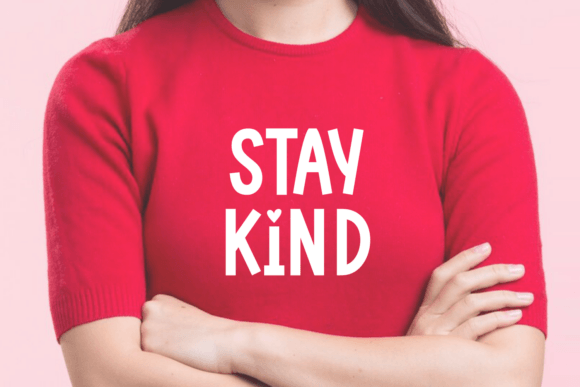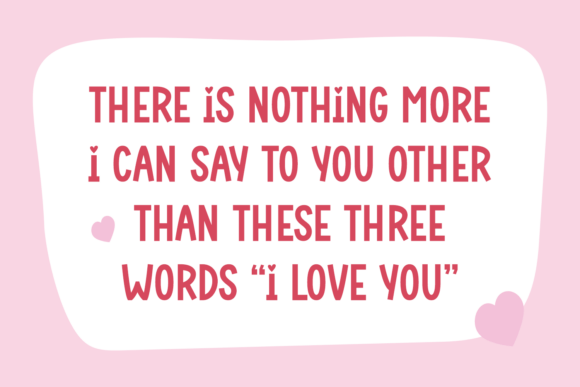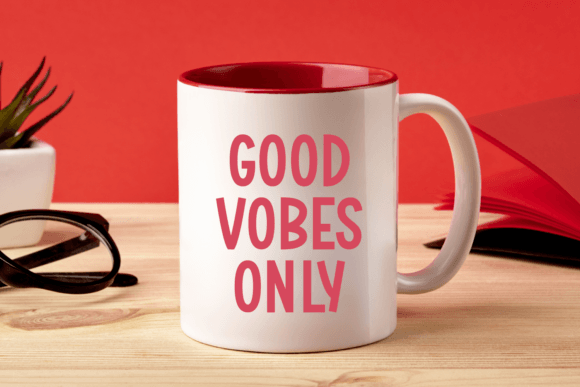
Introduction to Circle Story Font
As you sit at your desk, surrounded by scattered papers and half-finished design projects, you’re hit with a spark of inspiration. The perfect font has been eluding you, but today’s the day you stumble upon the elusive gem – the Circle Story Font. This enchanting display font is the epitome of sophistication and romance, transporting you to a world of modern whimsy.
Imagine bringing your creative project to life with the Circle Story Font’s unique charm. Whether it’s a Valentine’s Day design or a high-quality free download for your next design resource, this font’s charisma is sure to captivate. Crafted with love, its handmade strokes exude the allure of artisanal craftsmanship, making it a valuable addition to any designer’s toolkit.
With its transparent background and versatile design, the Circle Story Font is a treasure trove of creative possibilities. As you explore its features, you’ll discover why it’s a must-have for any designer seeking to elevate their work with a touch of elegance and emotion.
Key Features of Circle Story Font
- High-quality design resource with a unique, hand-drawn aesthetic, perfect for creative projects.
- Features a transparent background, allowing for easy layering and customization.
- Includes a comprehensive set of characters, including uppercase and lowercase letters, numbers, and punctuation marks.
- Designed to work well at high resolutions, with a minimum recommended resolution of 300 DPI for optimal results.
- Unique, circular design elements make it an ideal choice for projects requiring a creative, whimsical touch.
Honest Review: Circle Story Font
As a designer, I’m always on the lookout for unique and high-quality fonts to elevate my creative projects. The Circle Story Font is a recent discovery that has caught my attention. Upon closer inspection, I was impressed by its sleek and modern aesthetic.
- ✨ The font’s design is incredibly versatile and can be used for a wide range of creative projects, from digital designs to print materials.
- ✨ The high-quality design makes it perfect for use on transparent backgrounds, allowing the text to stand out and add a touch of sophistication to any design.
- ⚠️ The font may not be suitable for use in complex or detailed designs, as it can become difficult to read in certain contexts.
- ⚠️ The font’s design is quite minimalist, which may not appeal to designers who prefer more elaborate or ornate typography.
Overall, the Circle Story Font is a solid addition to any designer’s toolkit. Its modern design and versatility make it a great choice for a wide range of creative projects. While it may have some limitations, it’s a free download that’s definitely worth checking out.
Tips for Getting the Most Out of the Circle Story Font
Use the Circle Story Font for your next creative project to add a touch of elegance and sophistication.
Take advantage of the free download and transparent background to create unique designs.
Combine the Circle Story Font with other design resources to create high-quality visuals.
Common Use Cases for the Circle Story Font
The Circle Story Font is perfect for:
Birthday party decorations and invitations
Marketing materials and branding
Personalized gifts and cards